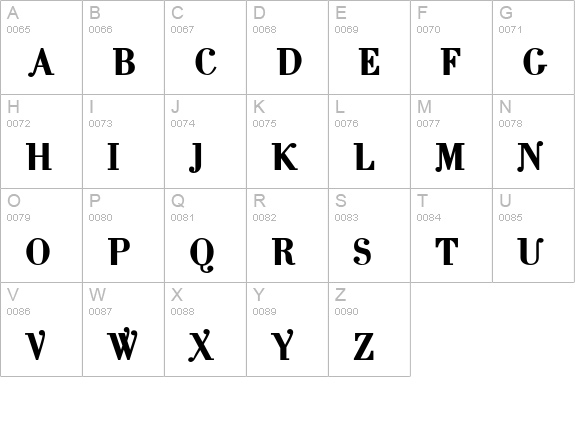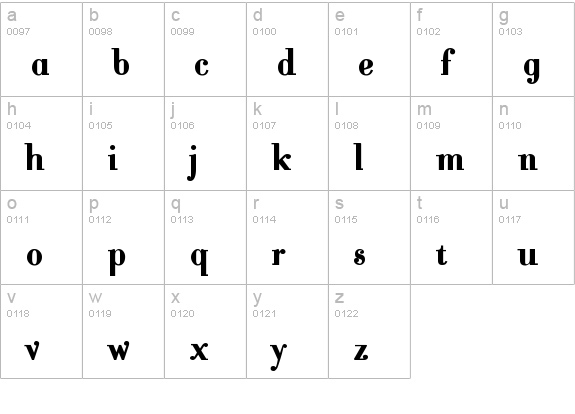
CantabileBold Font Details
CantabileBold font is a stunning and elegant typeface that exudes sophistication and charm. With its bold and striking design, this font is perfect for making a statement in your designs. The sleek curves and sharp edges of CantabileBold add a touch of modernity and style to any project. This versatile font is suitable for a wide range of designs, from logos and branding to posters and invitations. Whether you're looking to create a powerful headline or add a touch of elegance to your text, CantabileBold is sure to deliver. Best of all, CantabileBold is available for free download at FontsMarket.com. This means you can easily access this beautiful font and use it in your projects without any cost. Don't miss out on this amazing opportunity to enhance your designs with the timeless beauty of CantabileBold font.